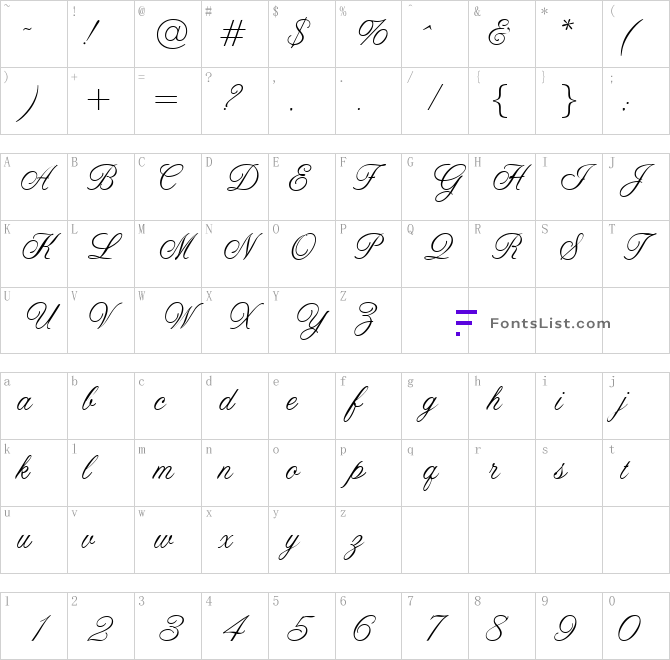
- Font Name:Altitude DB
Altitude-Regular-DB.ttf is a very beautiful artistic font, Altitude-Regular-DB.ttf is widely used in the design and printing of various books and pictures,Altitude-Regular-DB.ttf has a strong visual impact,Altitude-Regular-DB.ttf is a commonly used font in newspapers, magazines and books, and is used in posters, e-commerce Poster design, store design, logo design, font design and other fields.Altitude-Regular-DB.